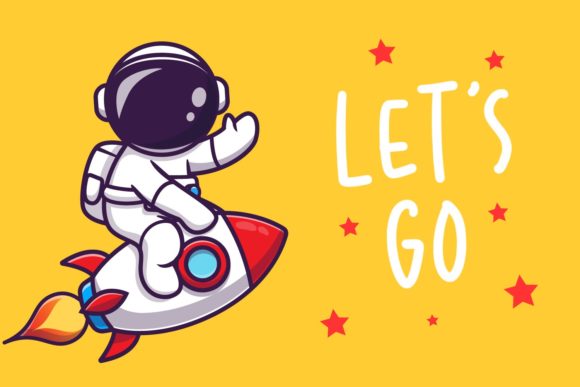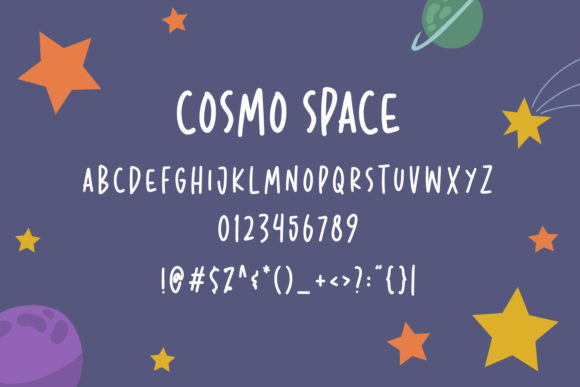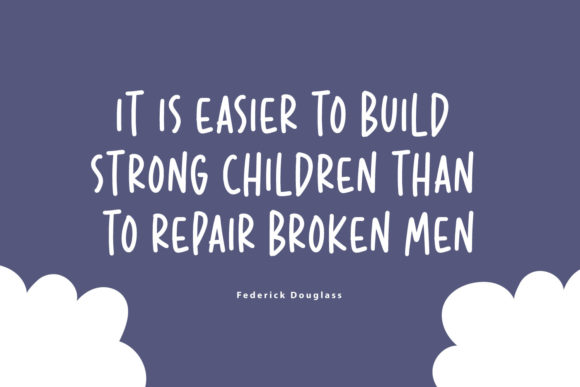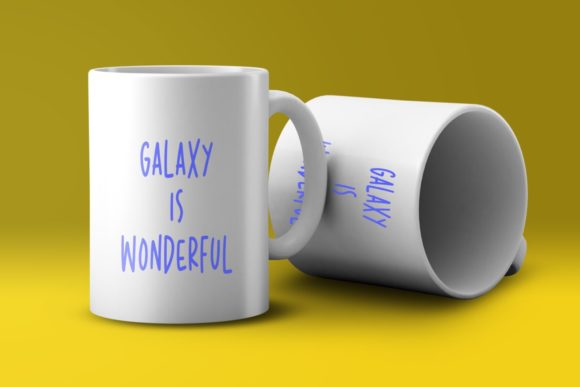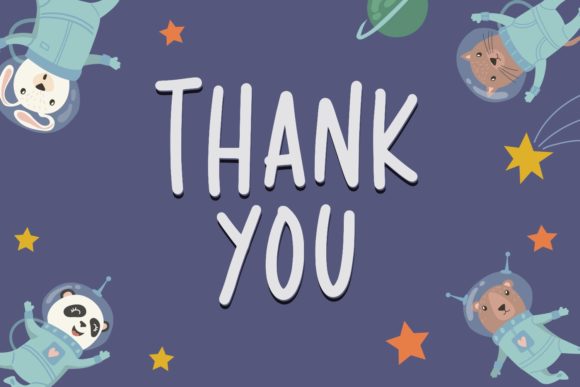
Introduction to Cosmo Space Font
Cosmo Space is a trendy and readable handwritten font.
Key Features of Cosmo Space Font
Why Choose Cosmo Space Font?
Cosmo Space Font offers exceptional quality and versatility, making it a valuable addition to your design toolkit. Whether you’re creating for personal projects or commercial use, Cosmo Space Font delivers professional results.